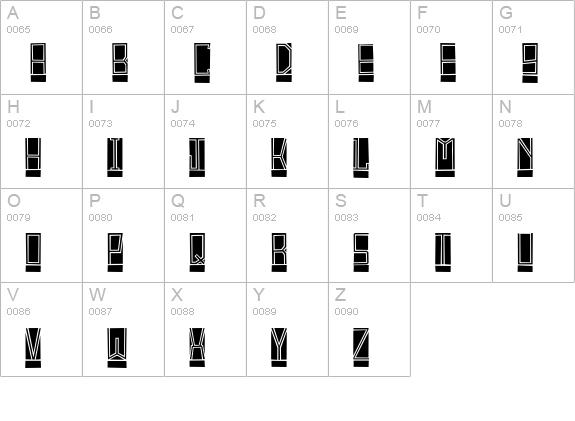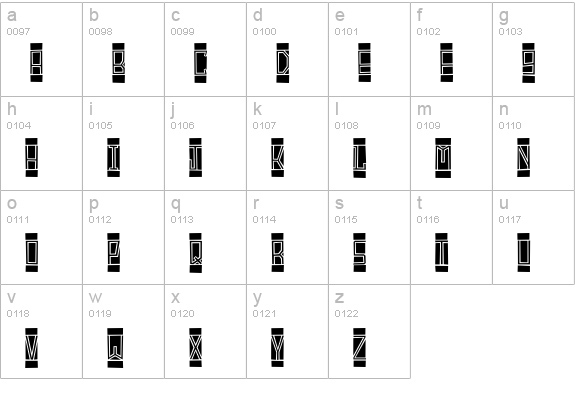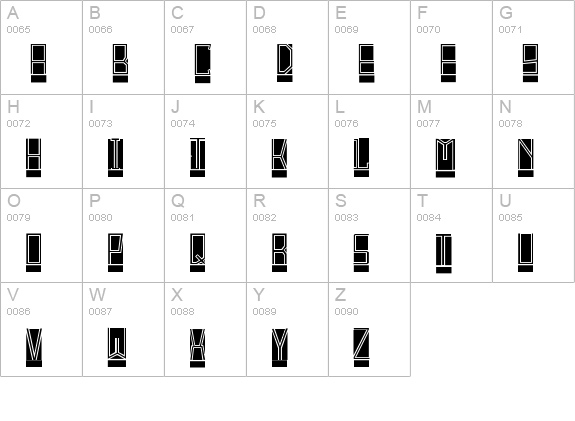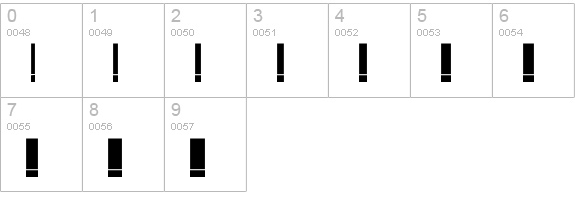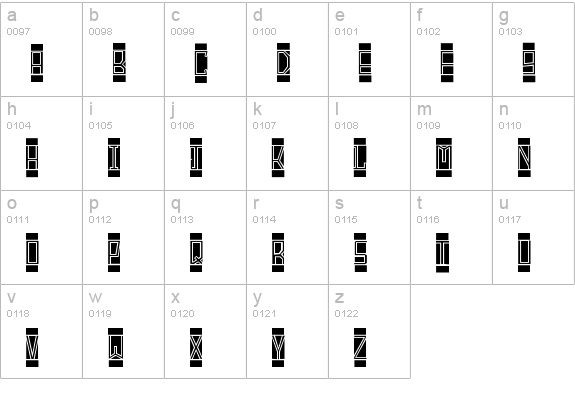
BlockTitling Standard Font Details
Introducing BlockTitling Standard font, a bold and eye-catching typeface perfect for making a statement in your designs. This versatile font is ideal for headlines, titles, and branding projects that require a strong and impactful look. With its clean lines and modern aesthetic, BlockTitling Standard font exudes confidence and style. The best part? BlockTitling Standard font is available for free download at FontsMarket.com. That's right, you can add this dynamic font to your collection without breaking the bank. Whether you're working on a poster, website, or logo design, BlockTitling Standard font will help you stand out and make a lasting impression. Don't miss out on this fantastic opportunity to enhance your projects with a high-quality font that is both stylish and accessible. Download BlockTitling Standard font today and take your designs to the next level!